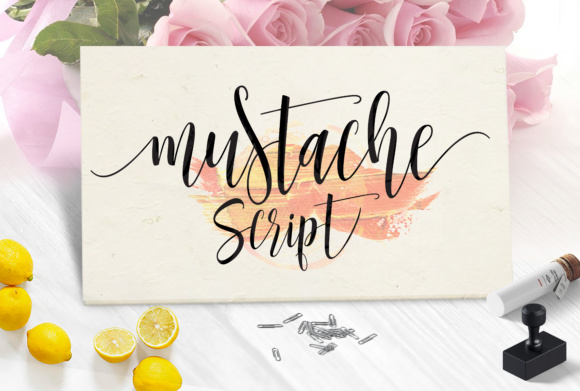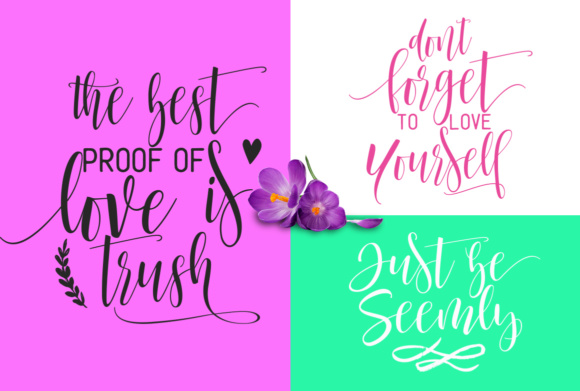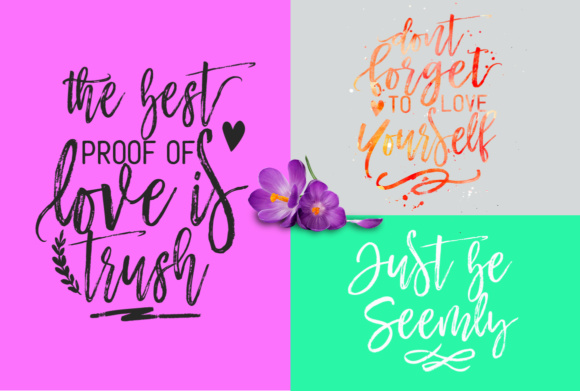
About Mustache Family Font
The Mustache is a beautiful handmade family of 4. It allows you to create a dynamic text with it’s different styles. It comes in a script, brush, rounded and swash version which allows you to create a unique design every time you use it.